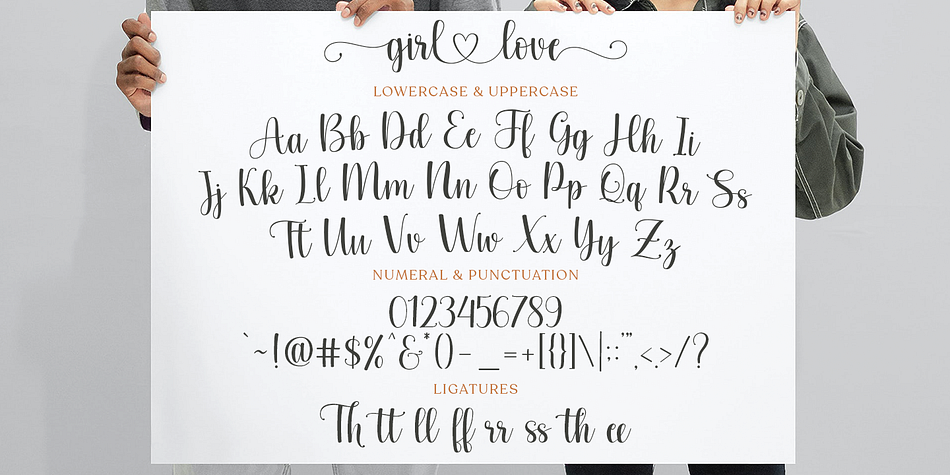
love girl
love girl is a modern calligraphy font family. This typeface has two styles and was published by Zane Studio.
The whole story is a sweet calligraphy script while maintaining its elegance. This will increase your design stand out!
love girl is the perfect typeface for all your types of projects, such as advertising, branding, graphic design, quotes, wedding designs, logos for online or offline businesses, photography, and more. Make your business more beautiful!
love girl has 2 VERSIONS of regular script with slanted tail.
Feature:
- Uppercase and lowercase letters (including PUA coded extra glyphs)
- Numbers and Punctuation
- Most Multilingual Accent